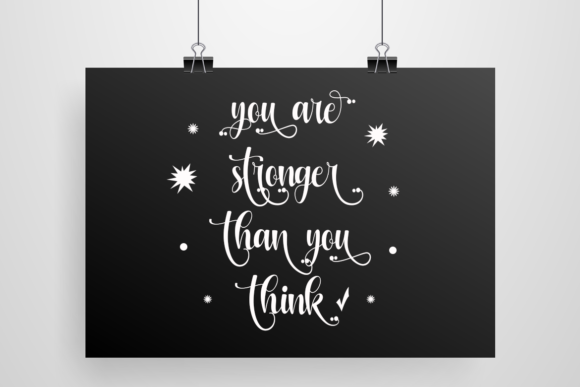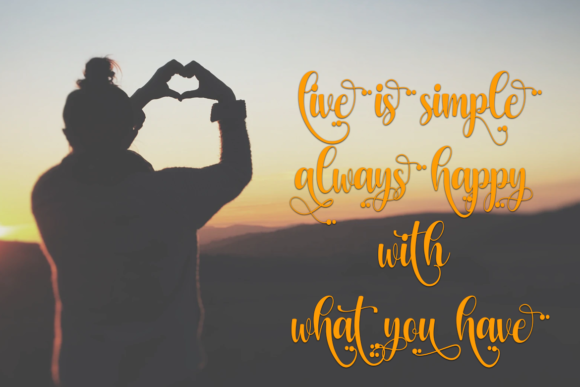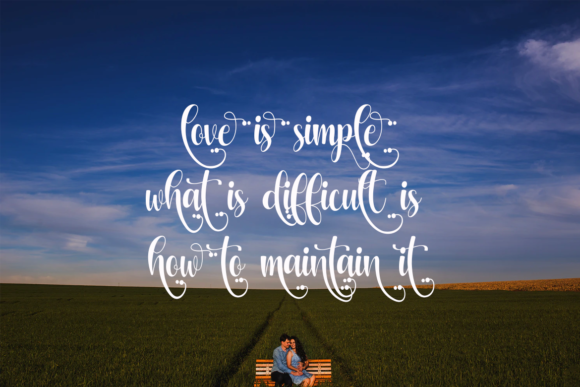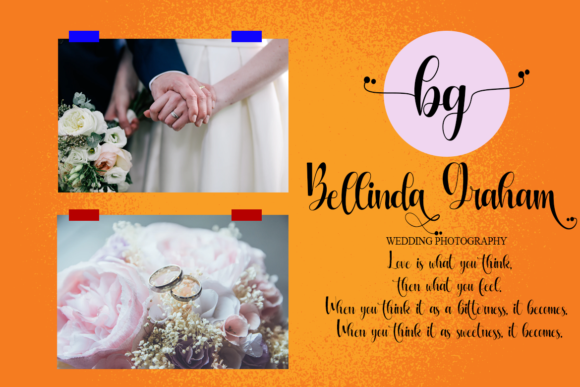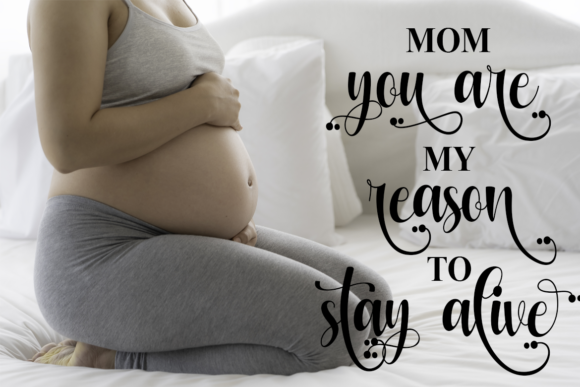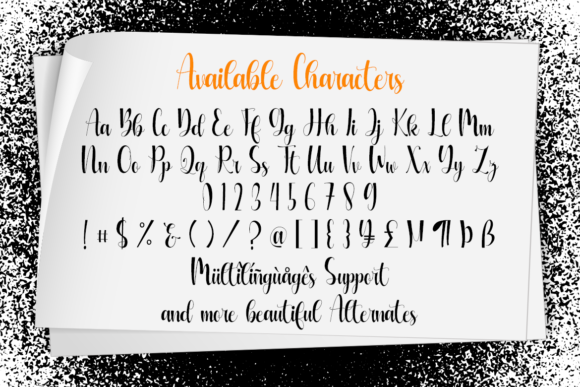
Miracle Mother Font – Free Download
Introduction to Miracle Mother Font
Miracle Mother is a beautiful light handwritten font with a unique feel and a stunning impact.
| 📌 Product Name | Miracle Mother Font |
| 👤 Author | Supersemar Letter |
Key Features of Miracle Mother Font
Why Choose Miracle Mother Font?